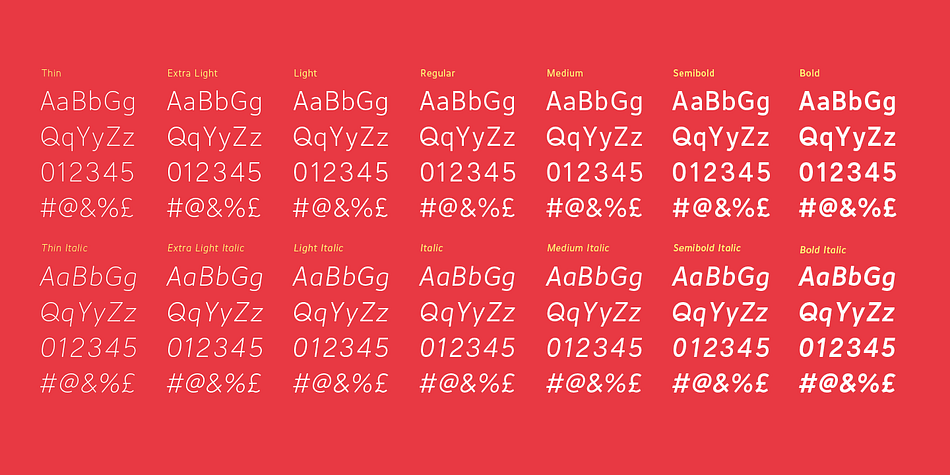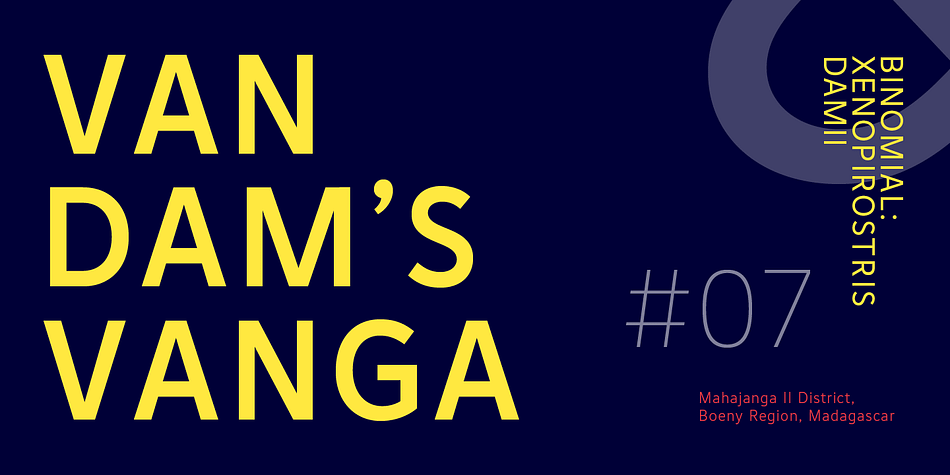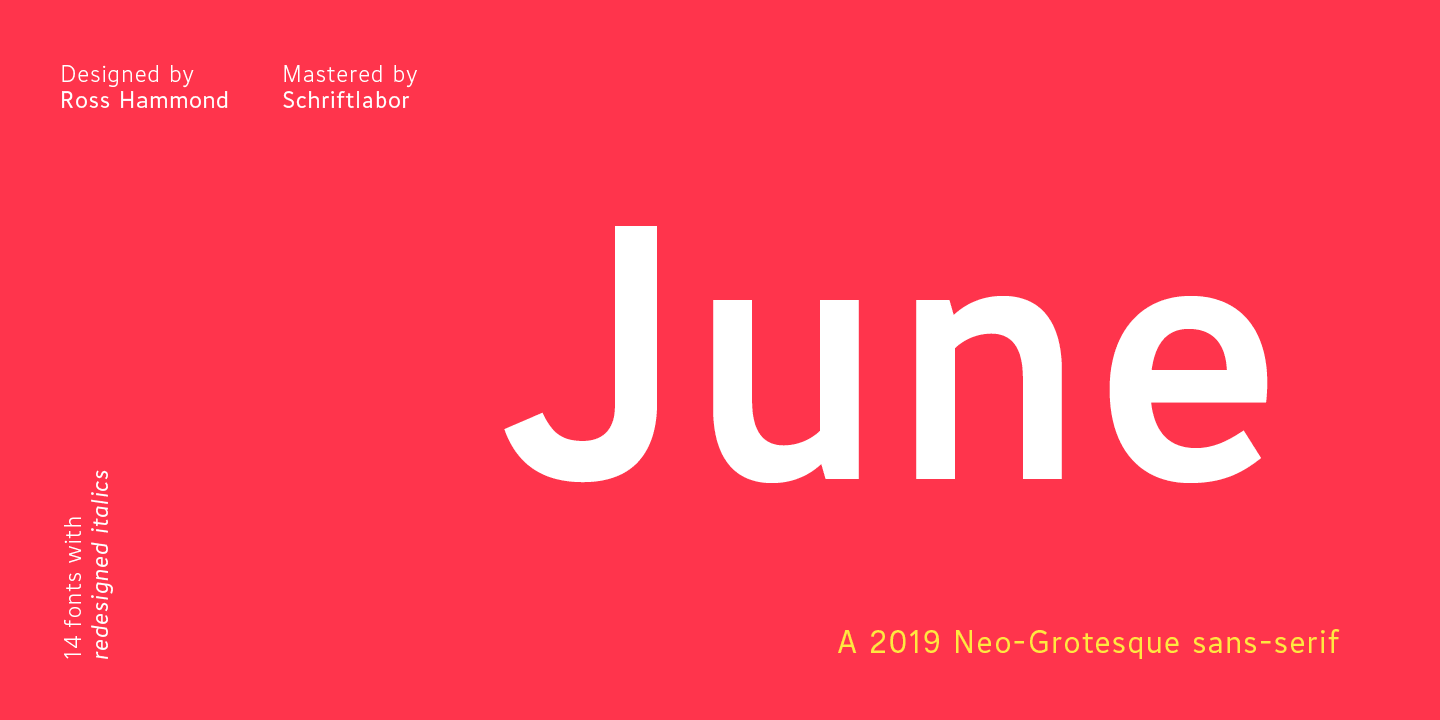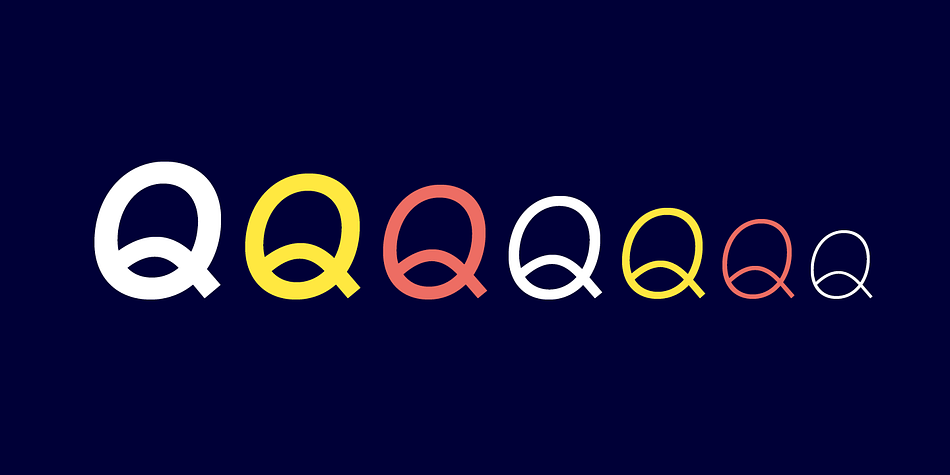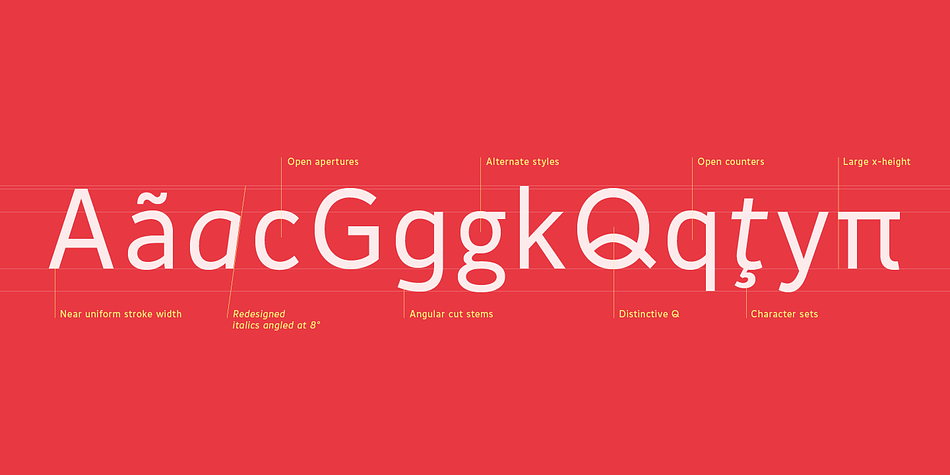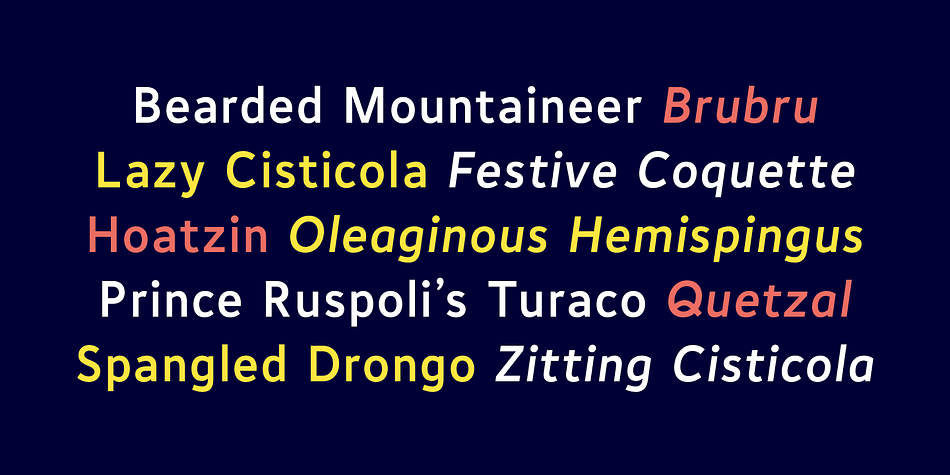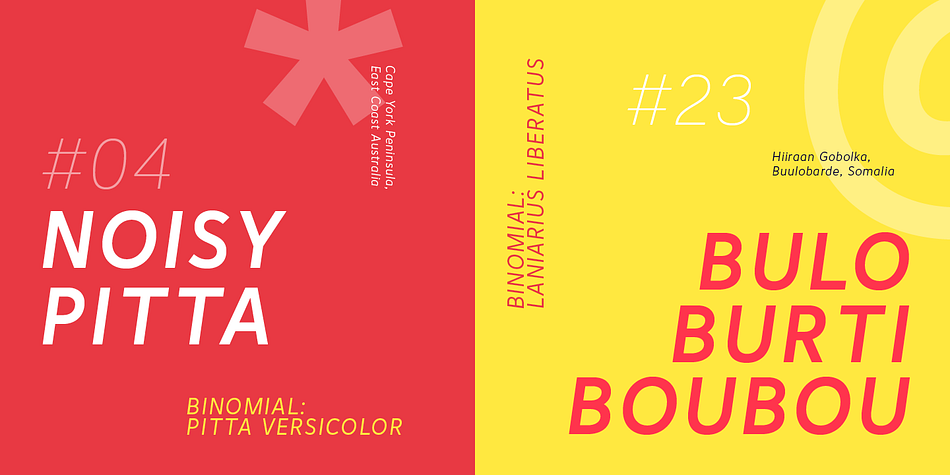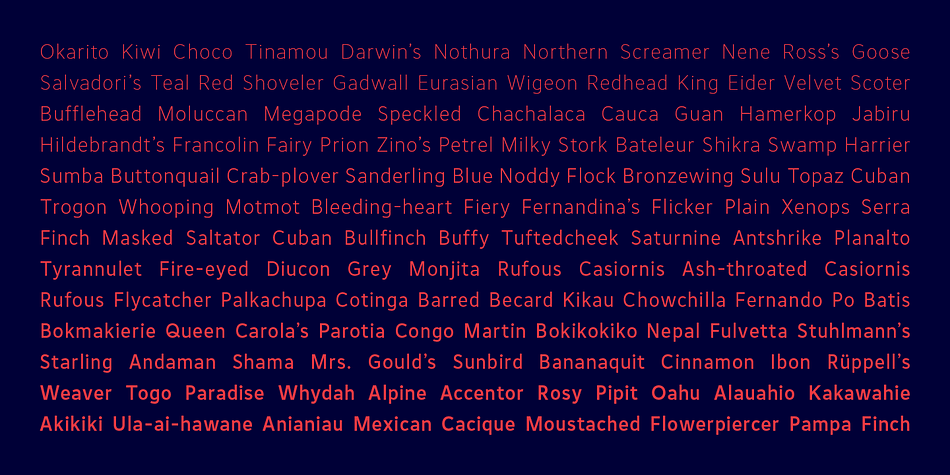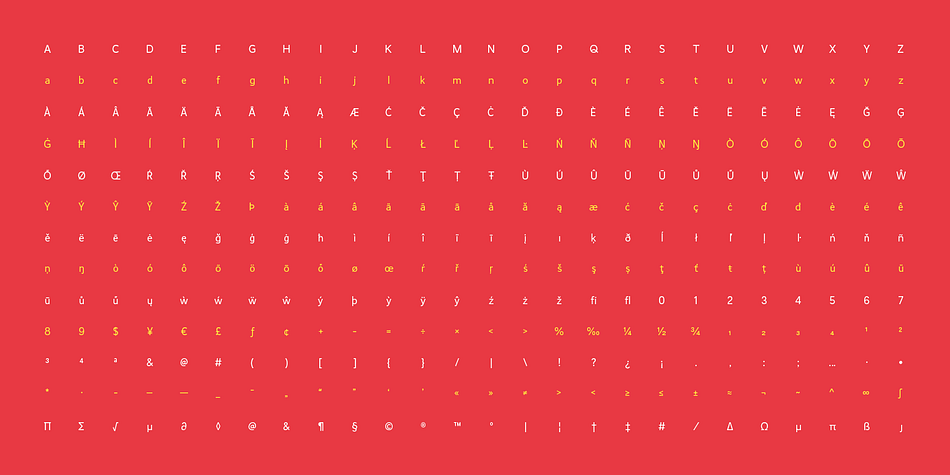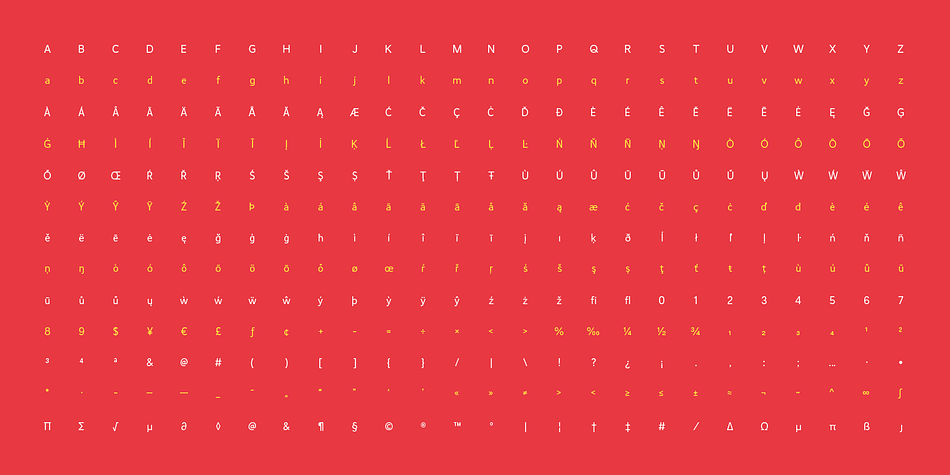
Designed by Ross Hammond and Lisa Schultz, June is a sans serif font family. This typeface has sixteen styles and was published by Schriftlabor.
June is a contemporary neo-grotesque sans-serif typeface designed to be highly legible, readable, and usable. The clarity and mathematics were inspired by the research into type form by Adrian Frutiger. June was designed by developing a modern and unique approach to his findings. June’s legible features include a near uniform stroke width, open apertures and counters, angular cut stems, and a large x-height. Italics are angled at eight degrees and have been redesigned to provide a stylistic difference without reducing legibility. June comes in seven weights, from Thin to Bold, each equipped with OpenType features. June can be used for all print sizes, and has characteristics that are more visible at larger sizes. June was inspired by a close family member of the designer. A part of all sales will be donated to Alzheimer’s Society.